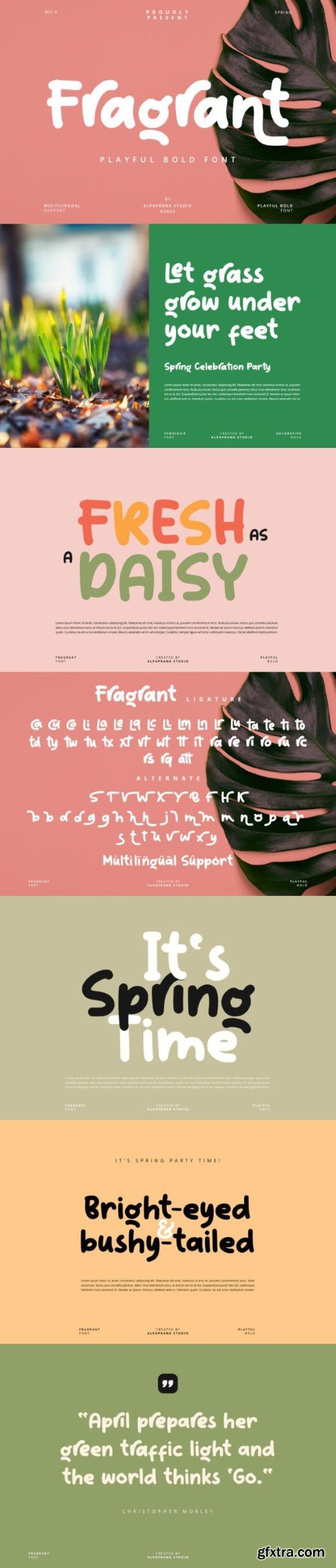
芳香字体
Fragrant is a sweet and friendly handwritten font. Its natural and unique style makes it incredibly fitting to a large pool of designs. The only limit is your imagination!